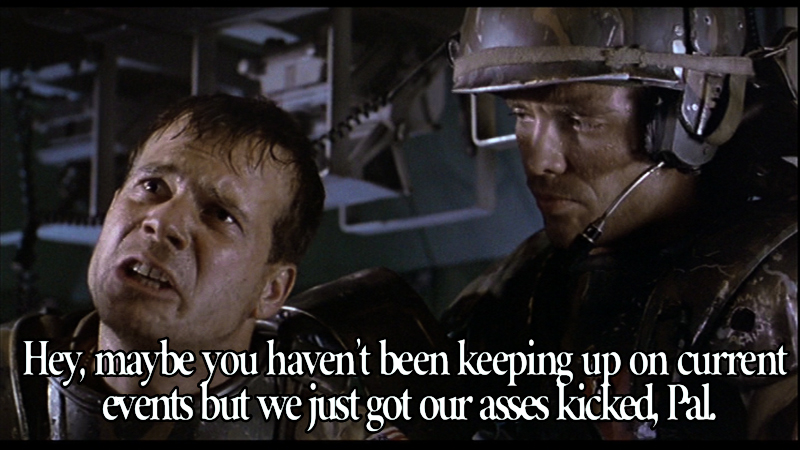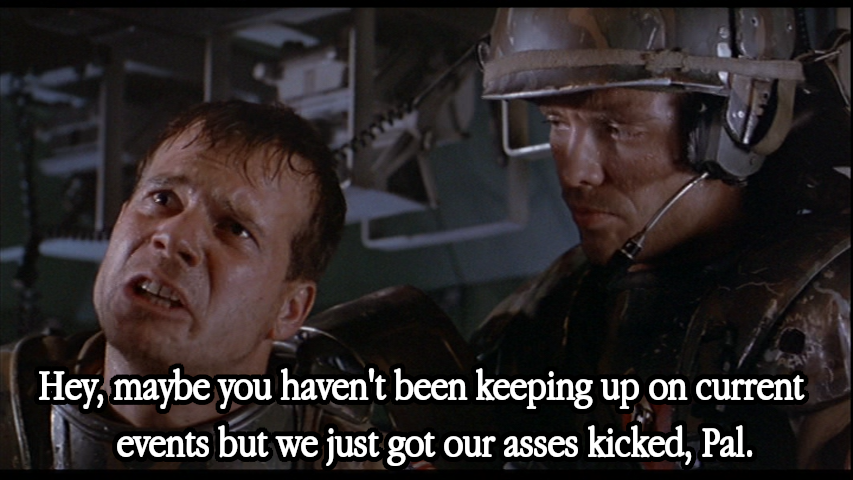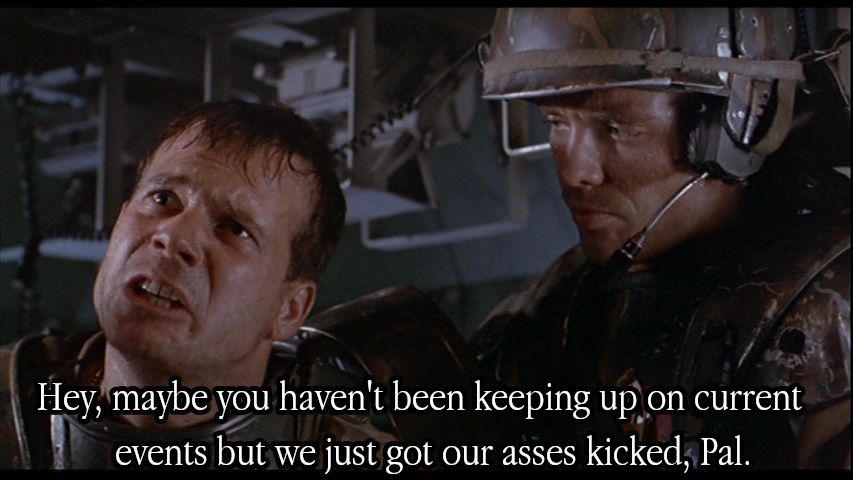
Does anyone know which font was used for this GIF? I'd like to use it for captioning my own images - I've seen it used in adverts in the past and I know that it's definitely not the ubiquitous Impact Bold Condensed which has become the online standard typeface but I can't place it.
It looks like the font used on early iBooks and PowerBook G4s.
I don't know what it's called though...
I don’t have looked exactly, but out of the box I would say you mean Apple Garamond.
Edit: It is not exactly Garamond, i will take a look, perhaps I can find the right one.
Apple had it's own style of Garamond: Apple Garamond, of course.
AppleGaramond-Light might be a viable choice. I'll have a play around with it in the GIMP. 🙂
There's a number of fonts here that are similar to Garamond or variations on it and I'm going to see if any of them match up with the font used in the GIF. Ultimately I suppose that I could just use the AppleGaramond-Light because it looks close enough to mimic the look somewhat...
If you have an image editor (say Photoshop) crop into just a small portion of the text and then save out a jpg of that.
Upload it here: WhatTheFont
Agreed, it looks closer to Garamond.
I sincerely don’t know this font, but as soon as I saw the gif text, my brain instantly went to go type-check what was used for TV adverts for Jack In The Box, circa 1988–1994. Not a match, obviously, but they share that same mood.
Unfortunately it didn't appear able to identify the font correctly because the leading match was Devin Semi Bold but the resemblance wasn't that strong with the text in the GIF. I'm convinced that it's a variant on Garamond, especially after downloading and playing around with AppleGaramond-Light in Pages and comparing with the normal Garamond.
Garamond Light isn't quite identical to the font that was used but it's close enough and definitely closer than normal Garamond. So let's get cracking! 🙂
Here's my first attempt - with the help of GIMP 2.10:
Ok, it benefits from better spacing which means that the lines aren't cramped on top of each other but it's missing a little something to mimic the condensed styling of the original.
That's better! All it took was adding bold to the text. Speaking of which, let's make it a bit larger and slightly change the vertical positioning.
Understood - that makes a lot of sense and this is why I'm quite content with achieving a reasonable approximation that I can apply to whichever images I'd like to work on. There's no point in coveting the unattainable. 🙂